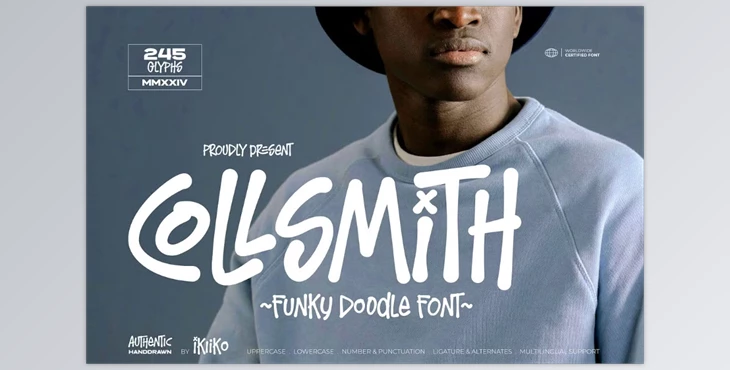
Collsmith - Funky Doodle Font Creative Market:
Collsmith is a unique, creative typeface that combines sophistication with a playful doodle style. Its distinctive charm adds flair and individuality to projects like fashion branding, magazine layouts, posters, logos, and more. Perfect for trendy designs, it offers artistic freedom and originality in every letter, making it ideal for elevating any creative work.
Let Collsmith’s stylish edge bring your ideas to life.